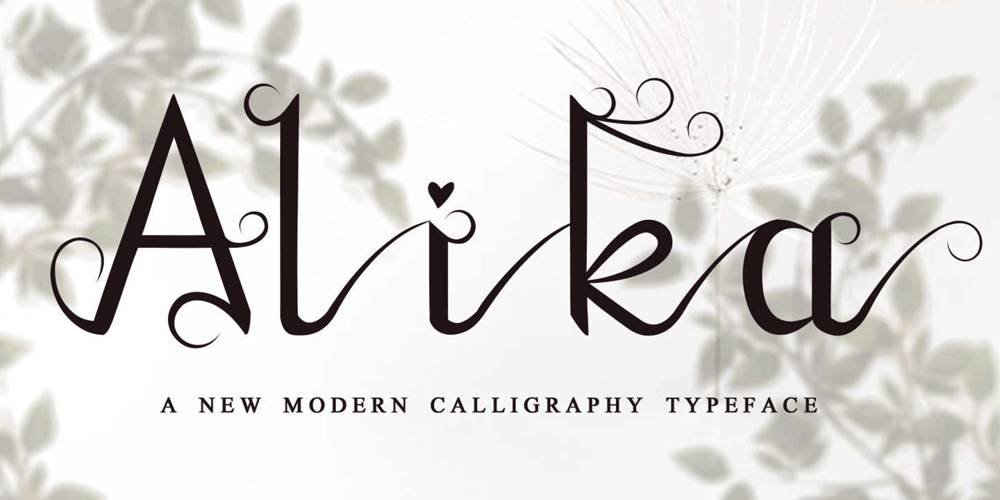
Alika Font Family was designed by Reza Mukhtazar and published by Rezastudio. Alika contains 1 styles and family package options. Alika is beautiful and lovely script font with many alternative style, ligatures, swash and multilingual glyphs.Alika can be used for wide ranges of application, such as wedding design, logo, invitations, social media posts, and others.Features:+PUA-Encoded+Can be used in any software, like Adobe Photoshop, Illustrator, even Microsoft Word, PowerPoint and others+Multilingual glyphs.